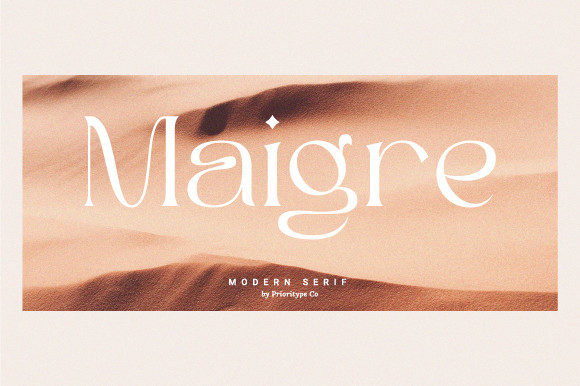
Get ready to dive into the world of classic elegance with the captivating Maigre Font, a serif typeface that exudes modern sophistication. Every stroke and curve of this font is a testament to timeless aesthetics, making it the perfect choice for those who seek a touch of vintage charm in their designs.
Maigre Font is not just a font; it's a versatile companion for your creative journey. Its delicate lines and graceful flourishes bring a touch of understated luxury to any project, from vintage book covers to sophisticated branding materials. Whether you're a seasoned designer or a typography enthusiast, Maigre Font will effortlessly elevate your creations to new heights.
But it's not just about aesthetics. Maigre Font is also incredibly user-friendly. Its PUA encoding ensures seamless access to a treasure trove of glyphs and ligatures, giving you the freedom to unleash your creativity without limits.